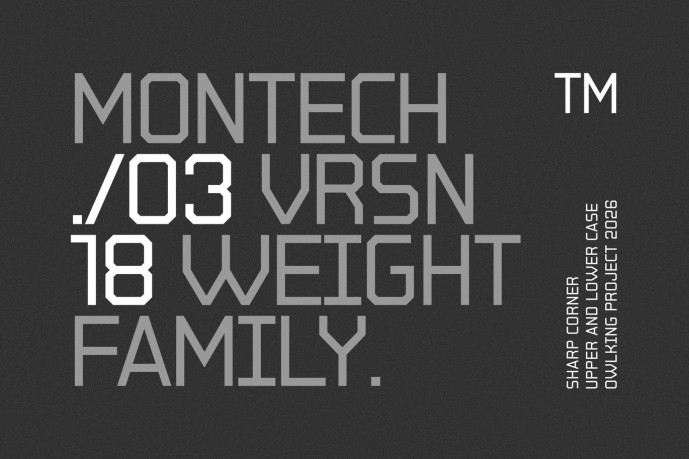
Montech V03 Font
Designer: Designer ilen nalishawa, OWLKING PROJECT
Montech V03 is a precision-engineered geometric sans-serif typeface designed for modern tech, industrial branding, and futuristic aesthetics. Featuring sharp chamfered corners and a clean structural framework, Montech V03 delivers high legibility paired with a distinctive technical edge. With an extensive family of 18 styles/weights (ranging from Thin to Black with matching italics), this typeface offers complete versatility for complex graphic systems, HUD interfaces, sci-fi branding, and detailed technical documentation.
9 Weights Thin Extra Light Light Regular Medium Semi Bold Bold Extra Bold Black Matching Italics.